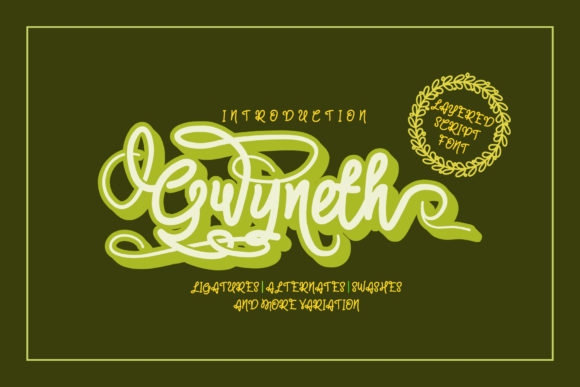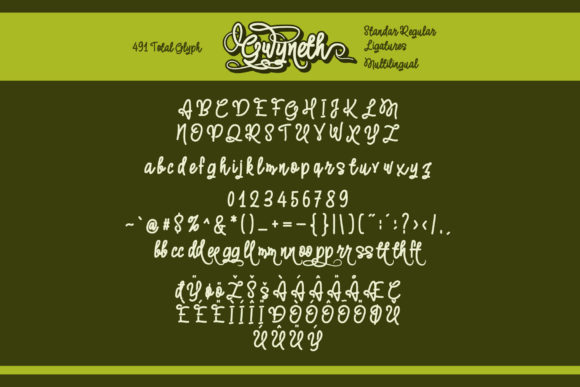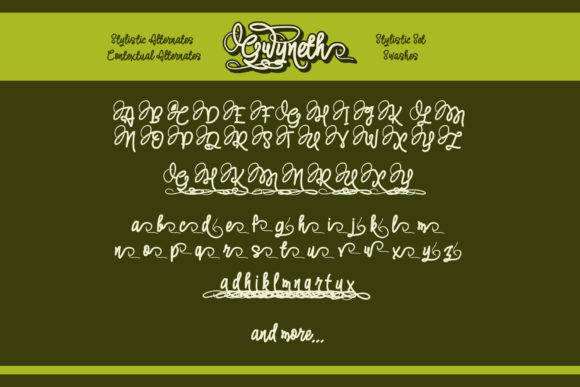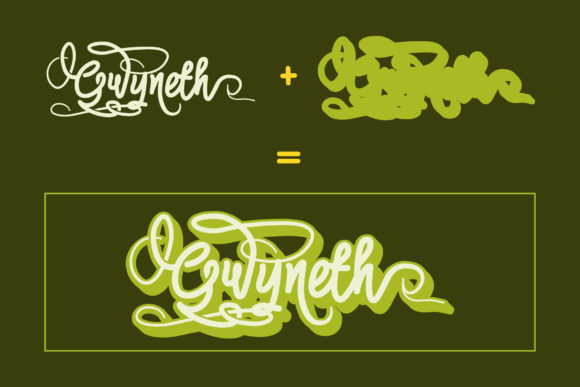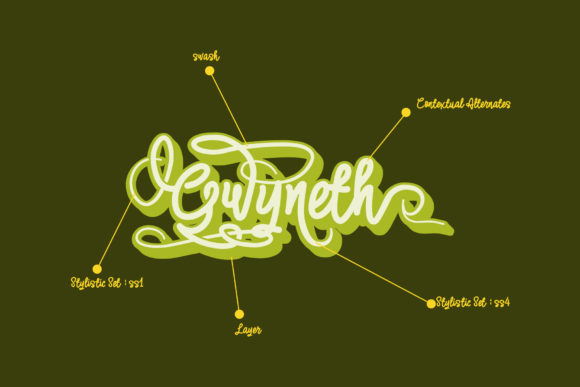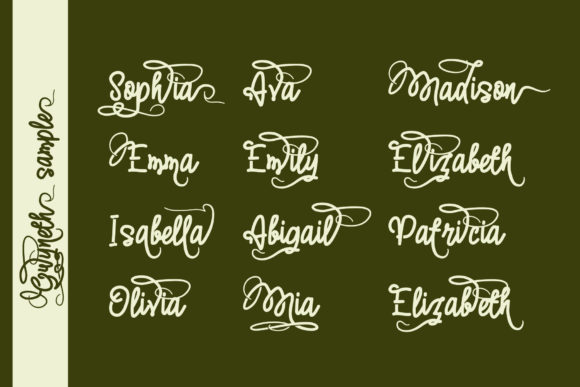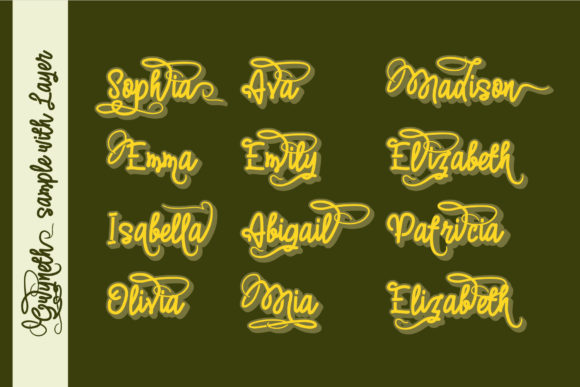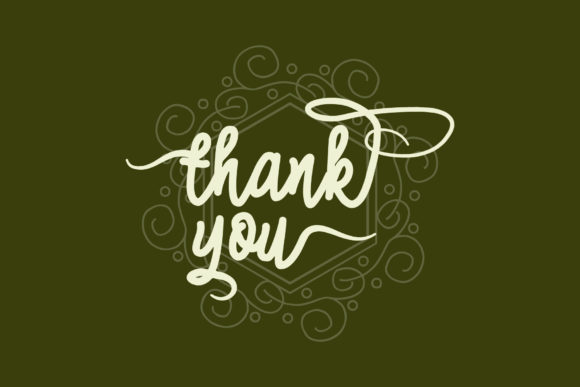
Gwyneth Font
About Gwyneth Font
Gwyneth is a stunning handwritten font that features tons of amazing alternates! Get inspired by this one-of-a-kind typeface!